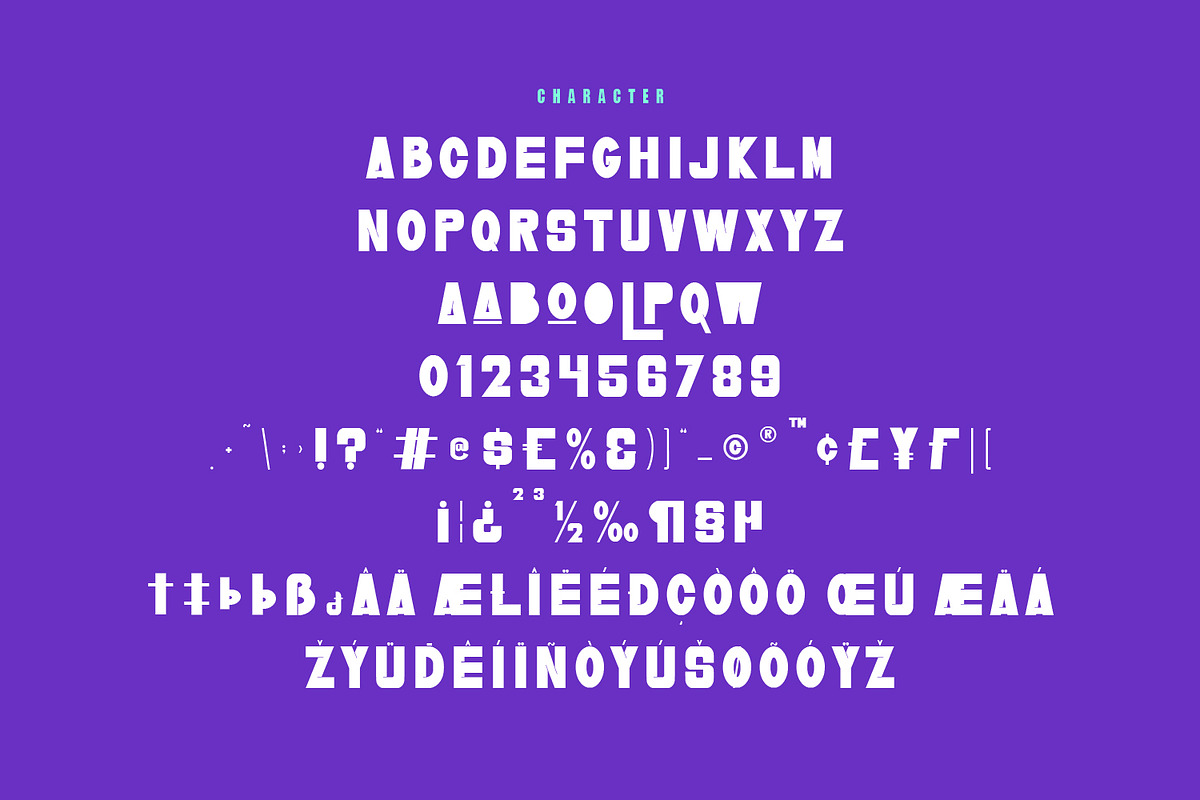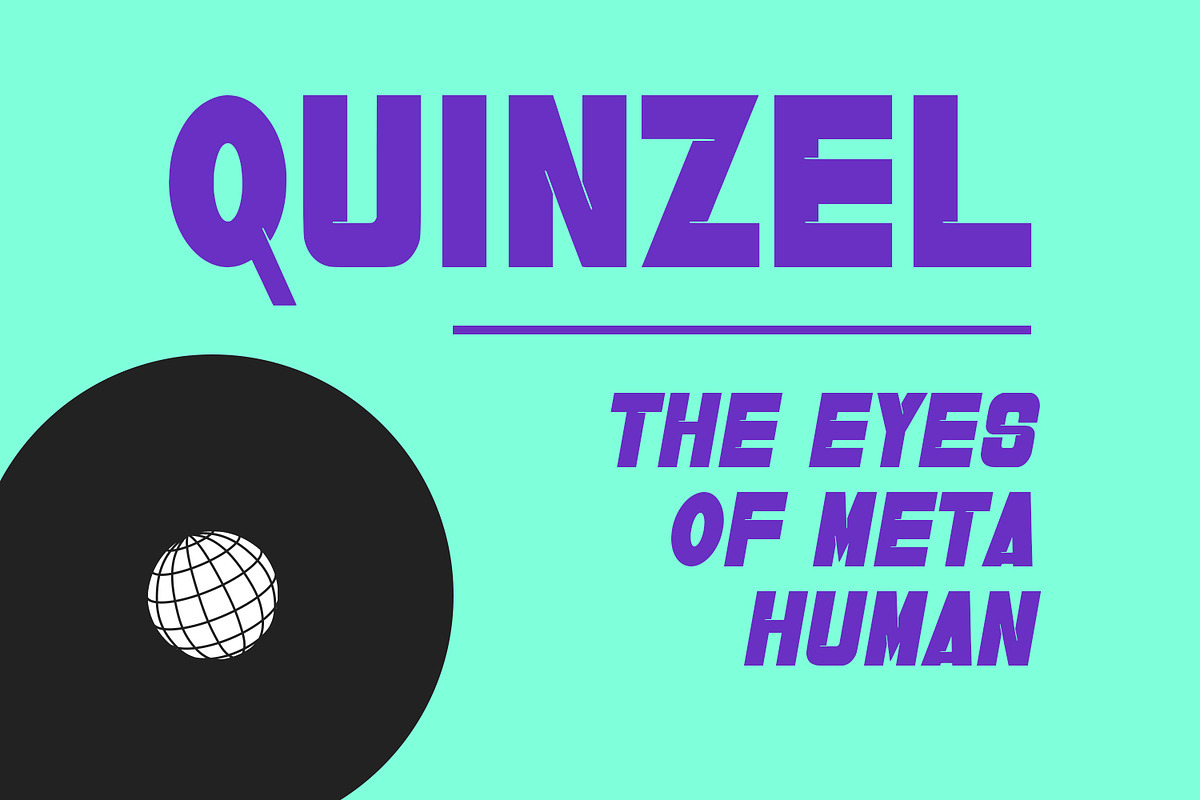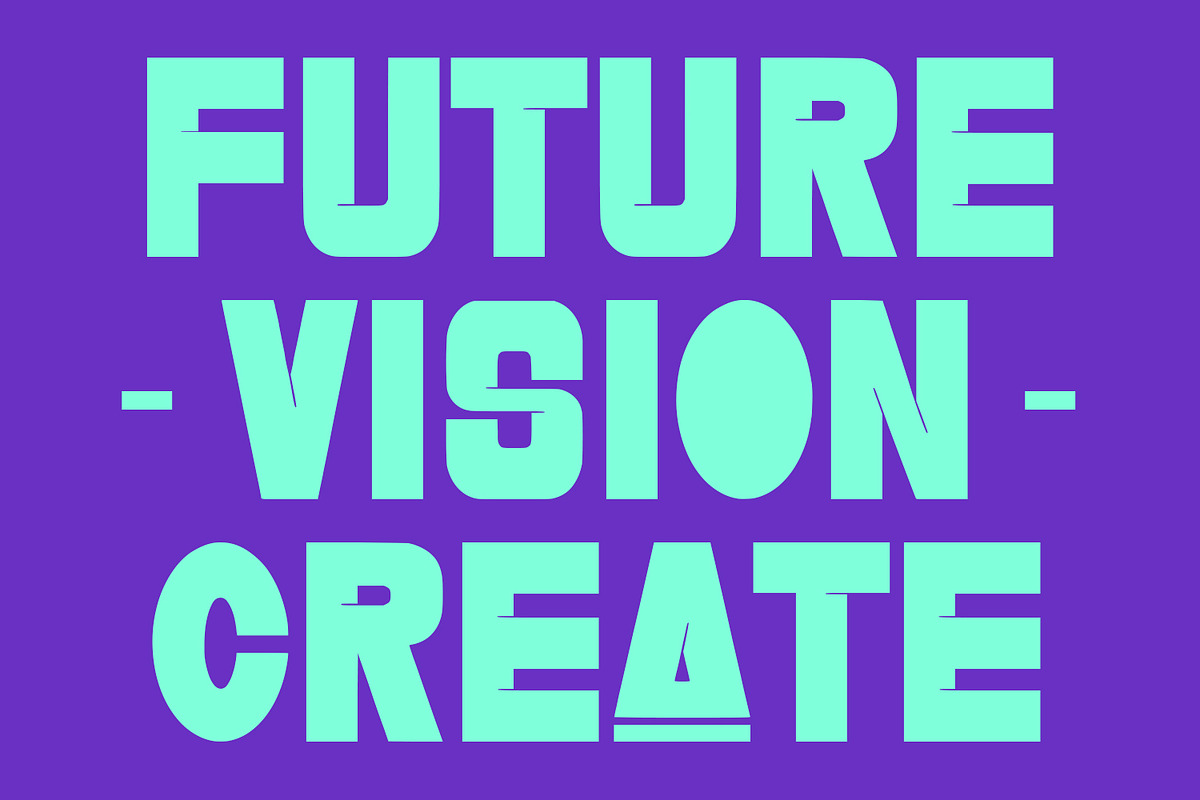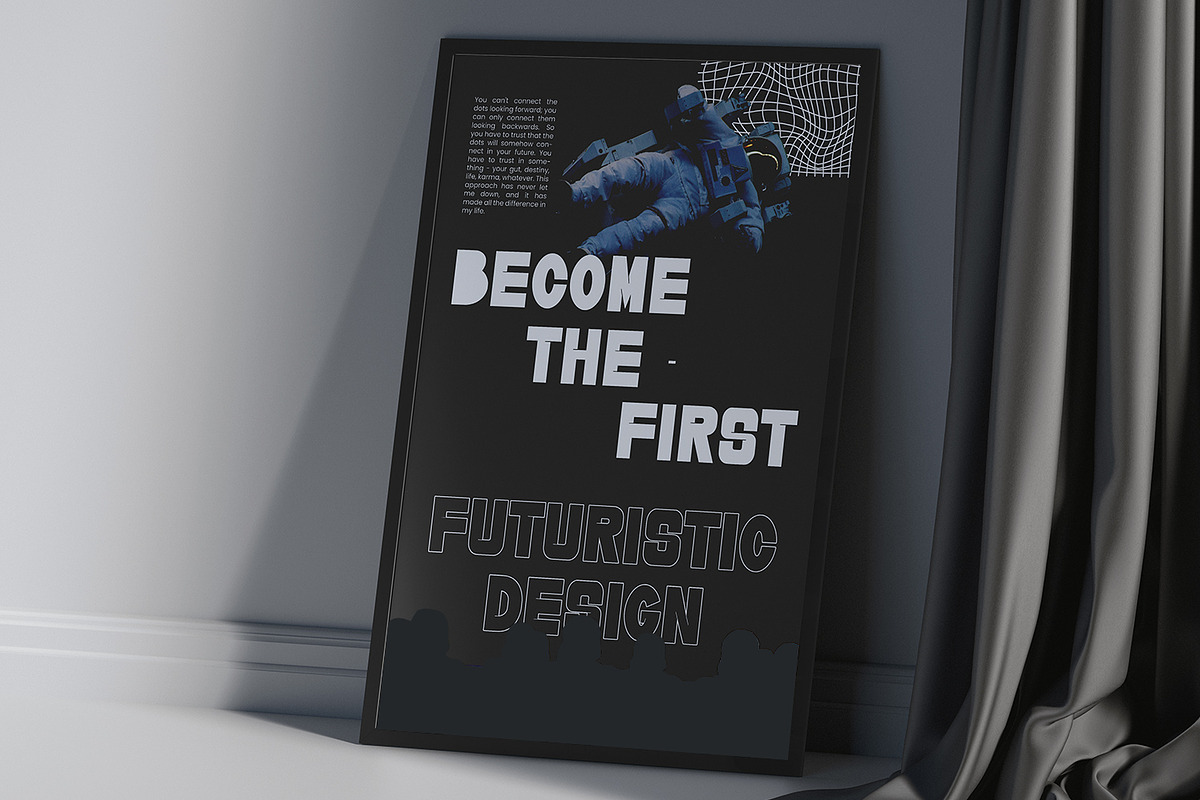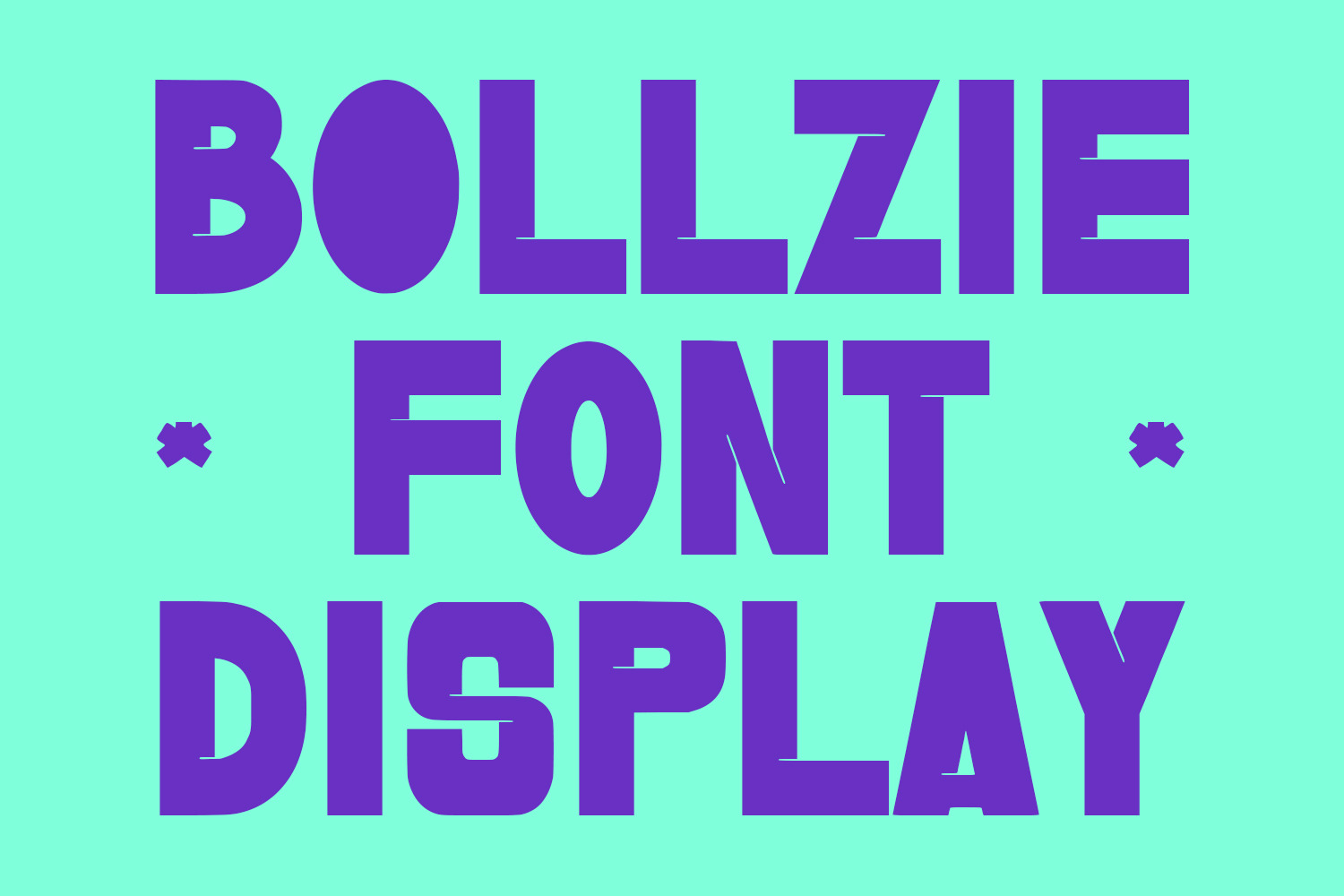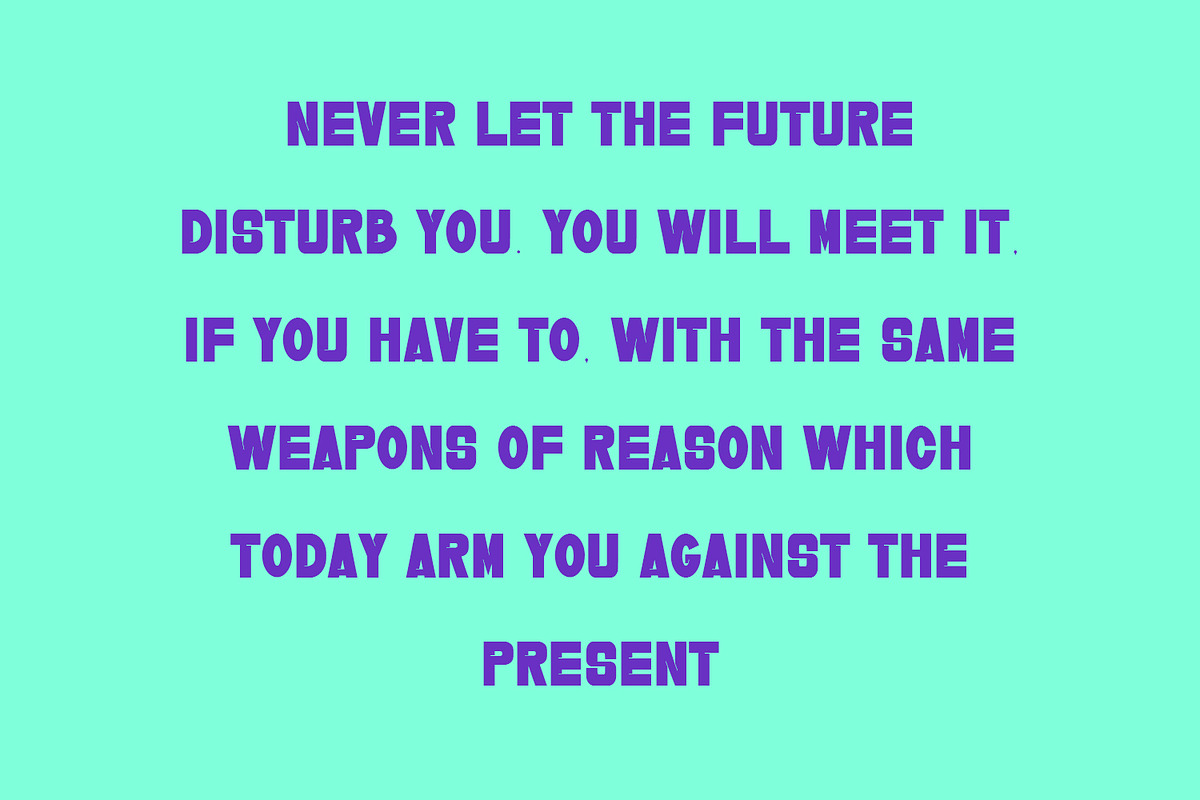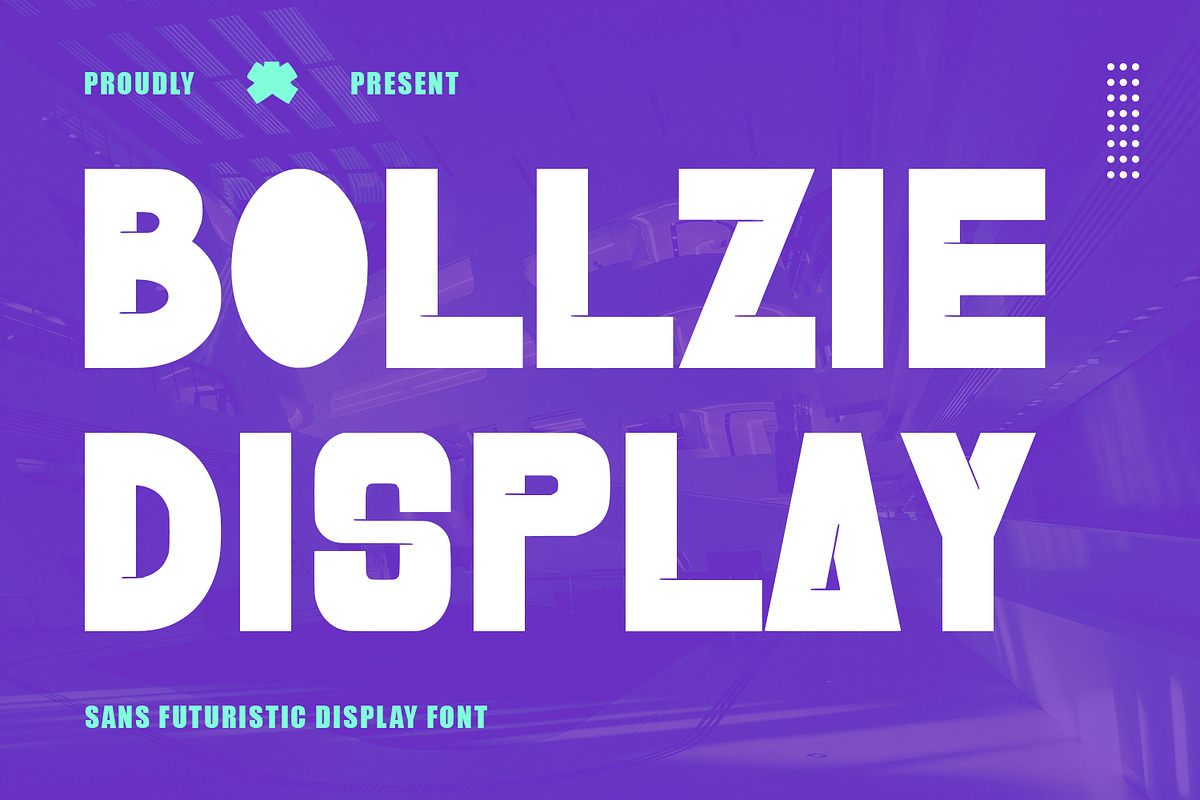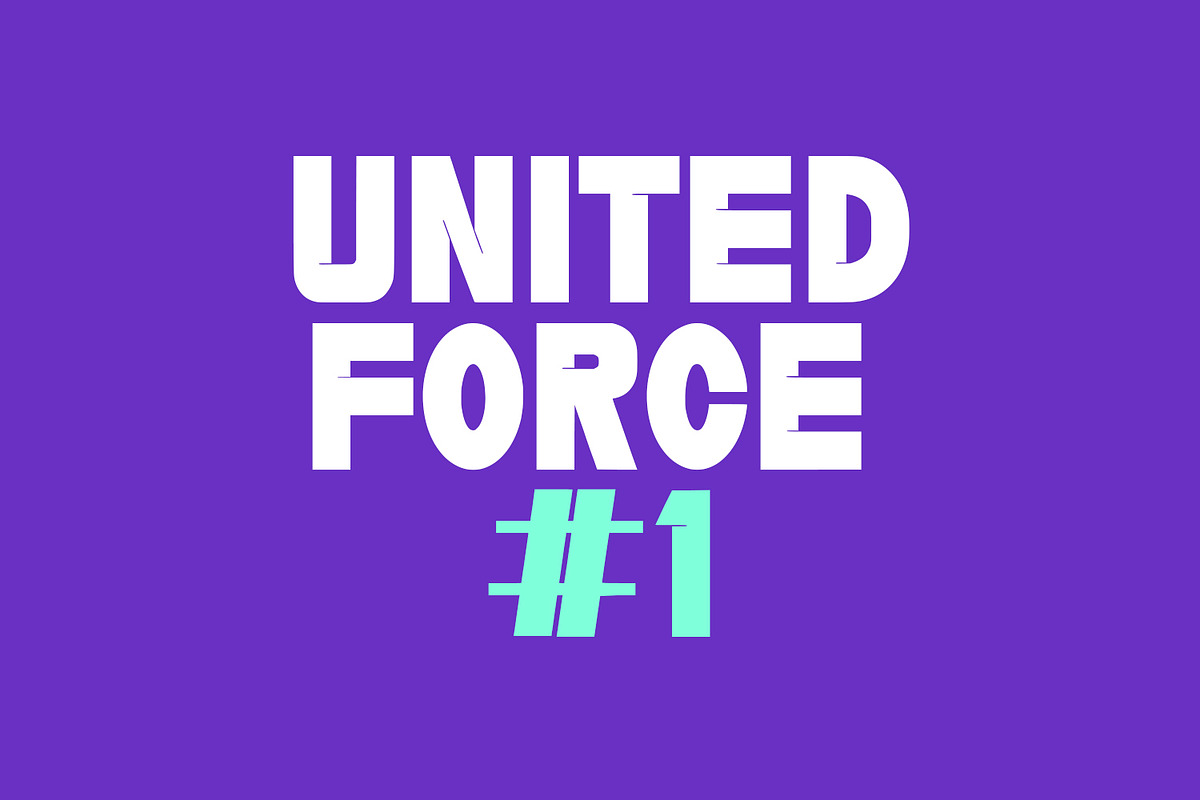
Bollzie Display Font Sans Serif
Bollzie is a modern sans serif font. With bold tall and sharp stroke, fun character with a bit of alternates to give you an extra creative work. Bollzie font support multilingual language. This font is good for logo design, Social media, Movie Titles, Books Titles, a short text even a long text letter and good for your secondary text font with sans or serif. Make a stunning work with Bollzie font.